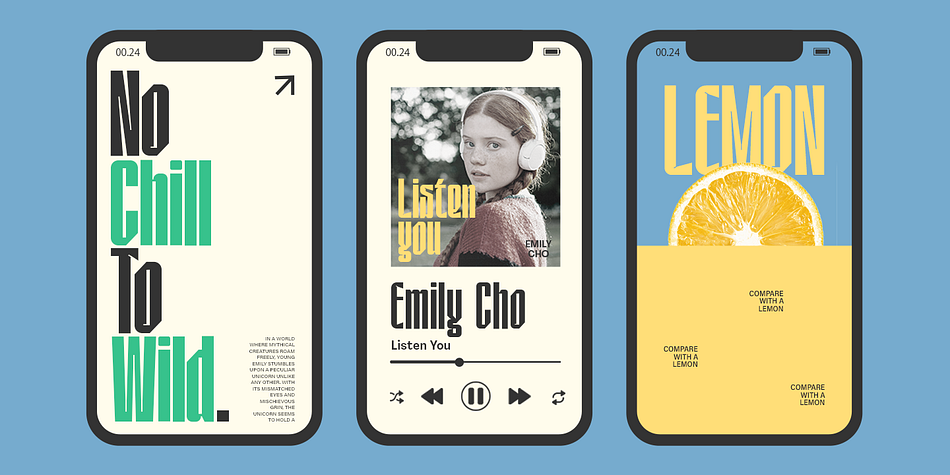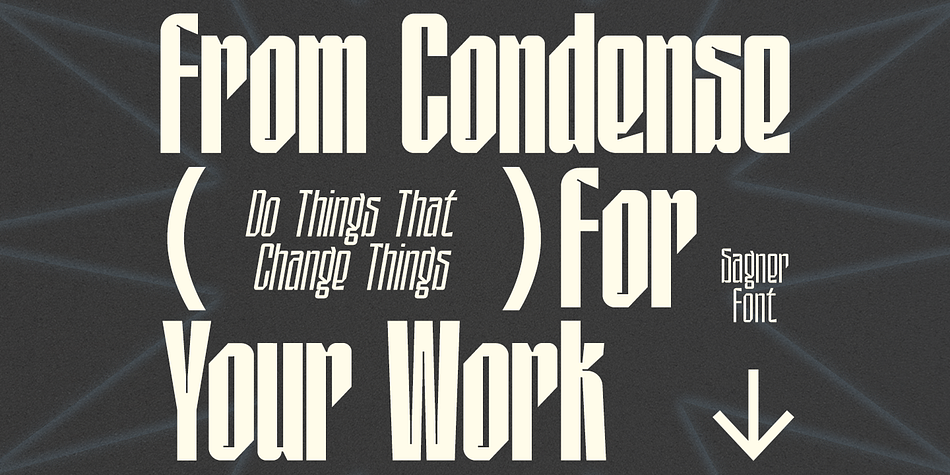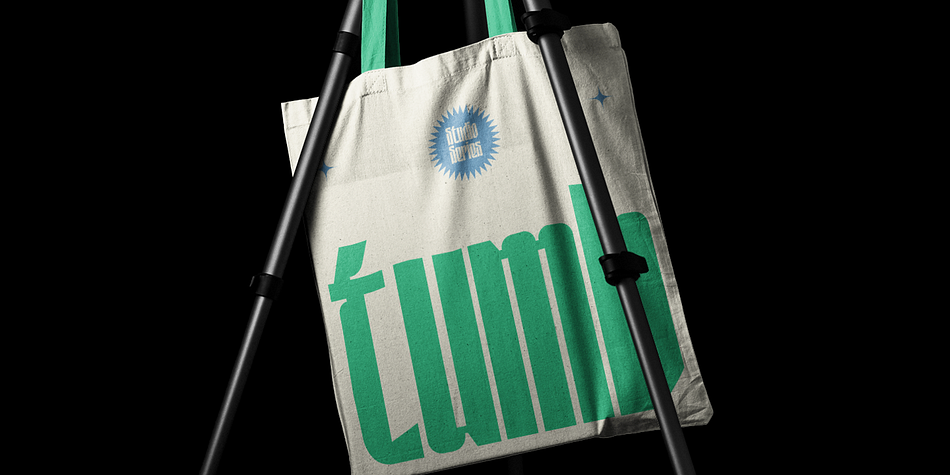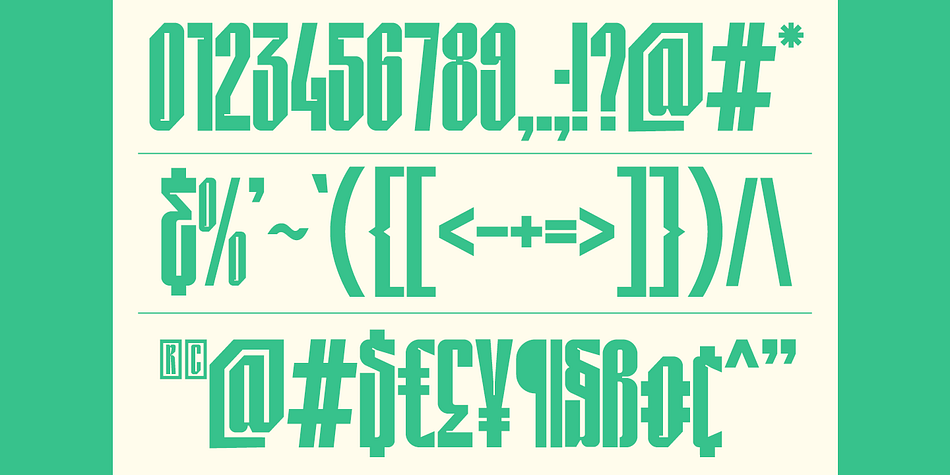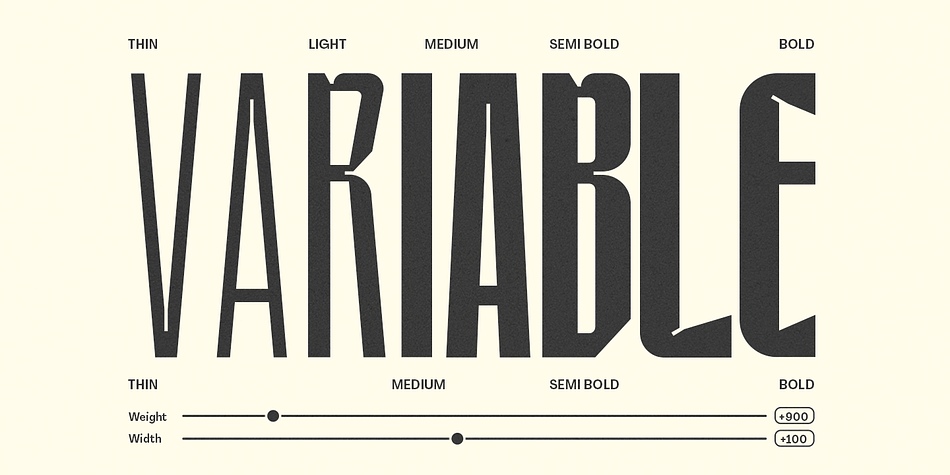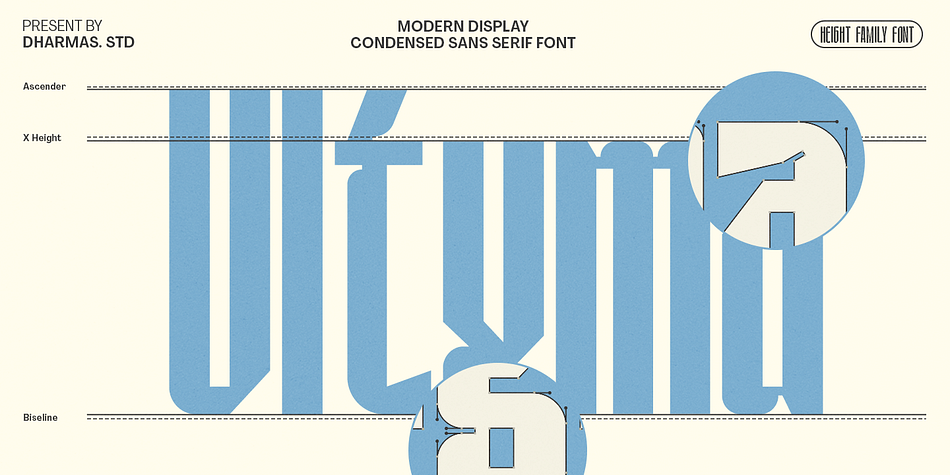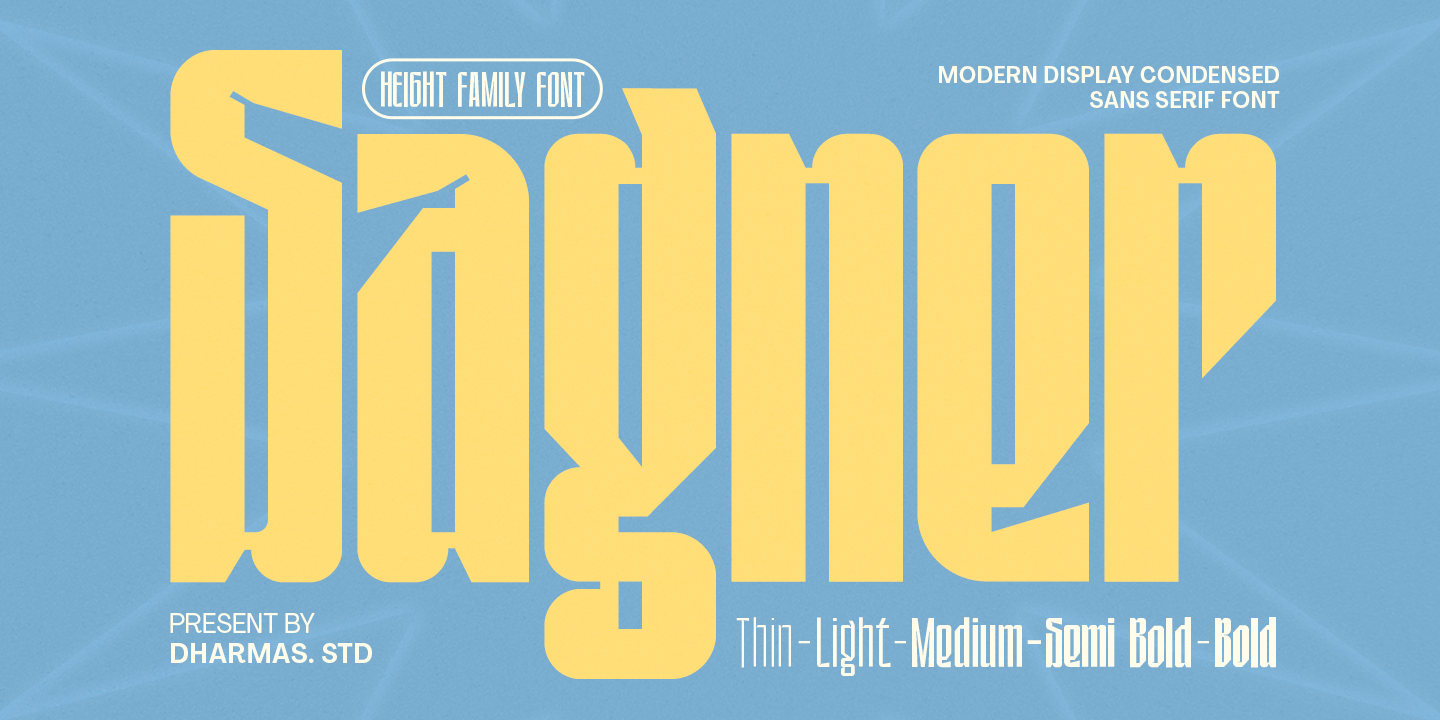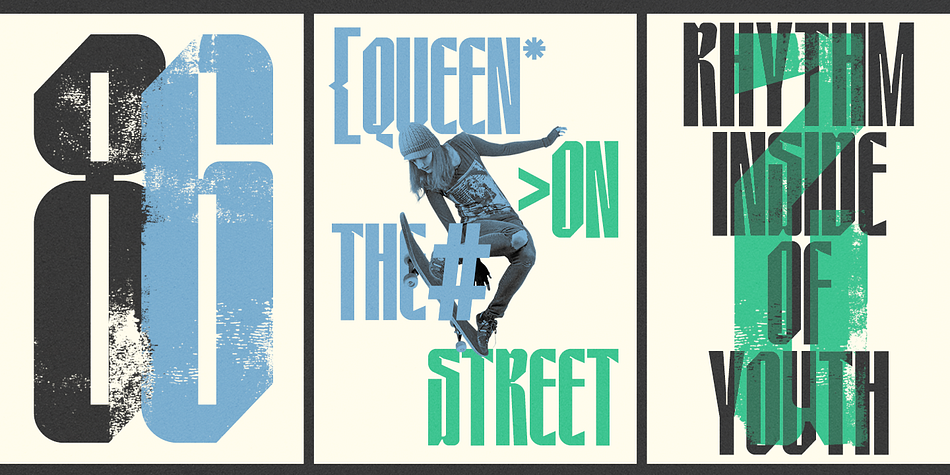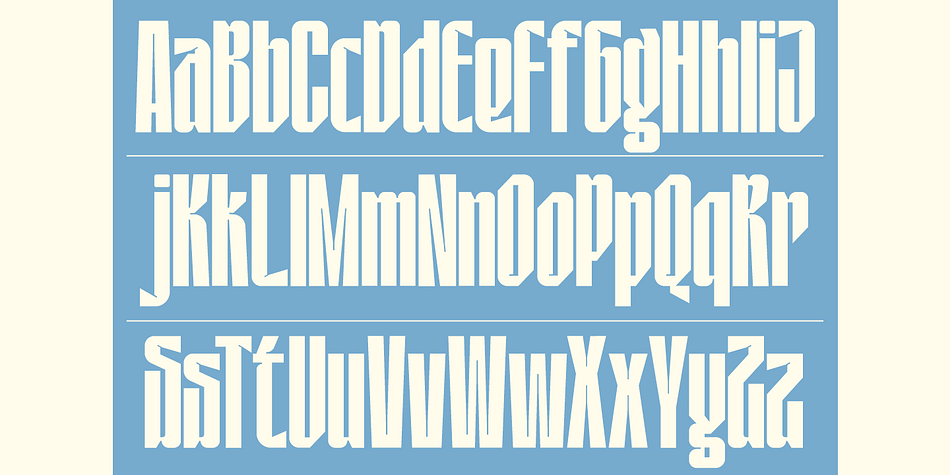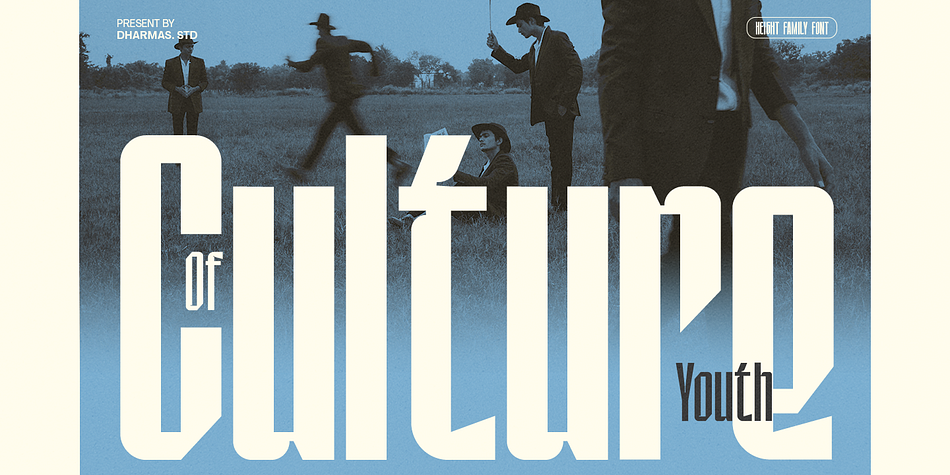
Sagner
Sagner is a display sans font family. This typeface has five styles and was published by Dharmas Studio.
Introducing Sagner! – An ultra-condensed sans serif with a style that is very different from the others
Sagner is a condensed sans-serif typeface created to be used for bold titles with distinctive shapes in a display font way to make it legible for contemporary use. Come with single-weight, legible, and expressive shapes. Its glyph catalog provides an easy-to-compose system for Latin languages with high x-height and tight line spacing.
Sagner comes in 5 font styles (Thin, Light, Medium, Semi Bold, Bold), Its weight is superior in posters, social media, headlines, magazine titles, clothing, large print formats - and wherever you want to be seen. Inspired by the style of design that is currently popular, this is the answer to all the needs of every idea that you will pour into this modern era.
- Unique Gylph Letters